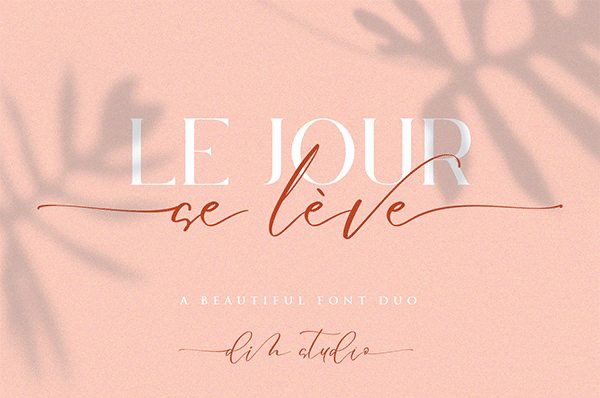
Font name: | Le Jour Script |
Introducing Le Jour Font Duo. Le Jour is a beautiful calligraphy combine with modern serif. Made with naturally handwritten. The combination of the font will make your design more beautiful and luxury. This font is suitable for any design like wedding, branding, quotes, and etc. For Commercial use please Download : https://crmrkt.com/33vWDJ |